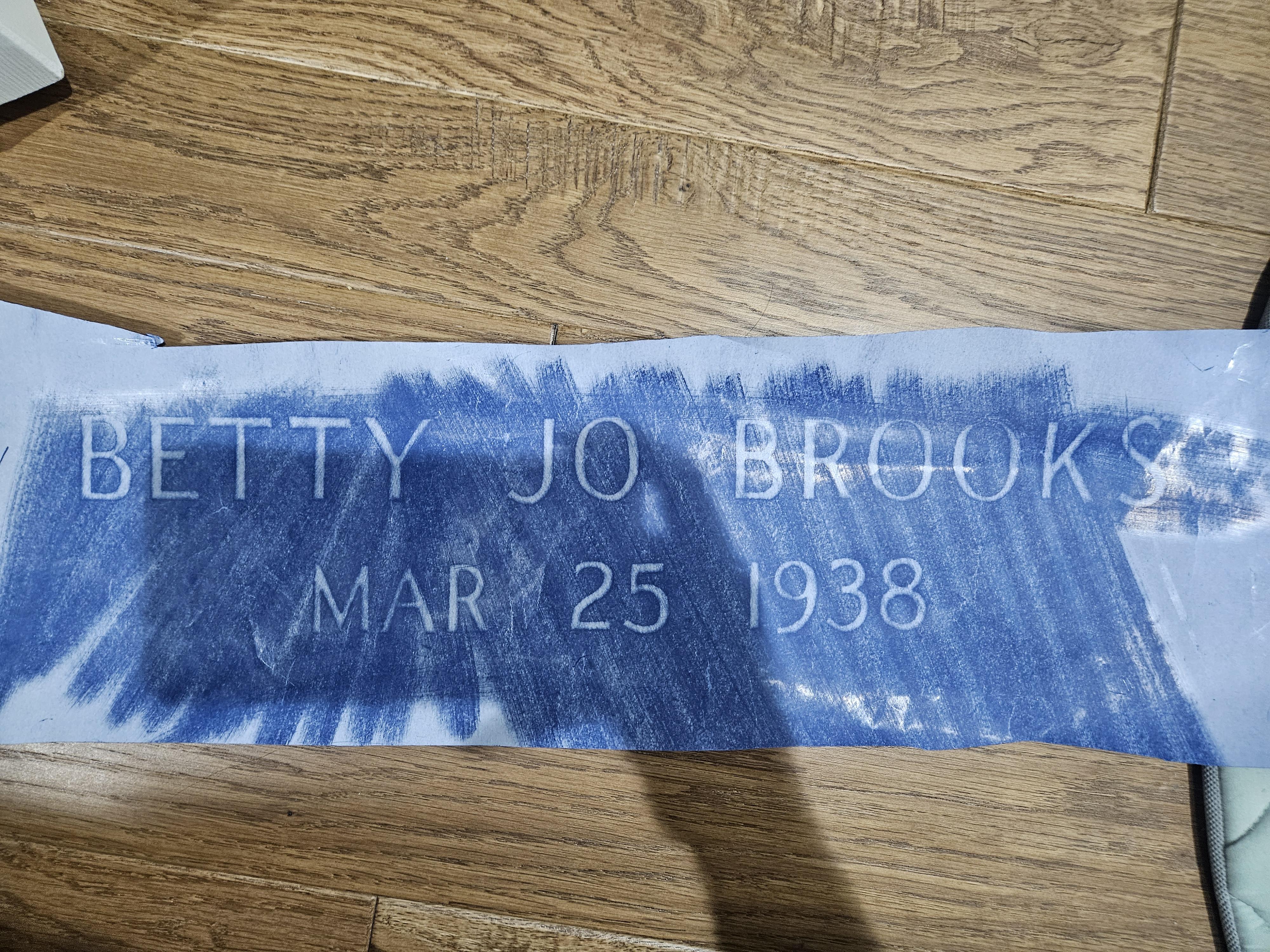
This is a Monument Roman Sans-Serif font, which would have been based on the metal Spacerite Modified Roman letters and then hand-cut, with the stencil cutter removing the serifs.
I have created a digital version to match it, but there are always some differences due to the hand-cutting element, so it may need to be modified further still to match exactly.
MLC Signature Series Modified Roman Sans